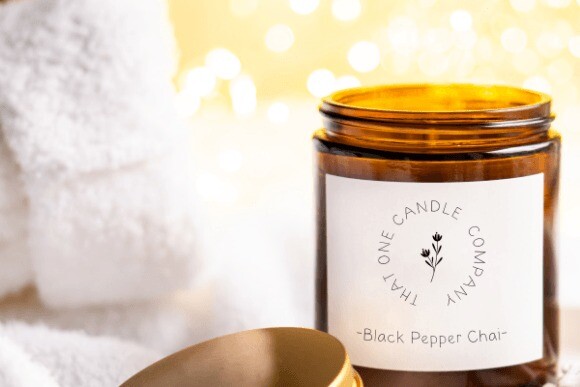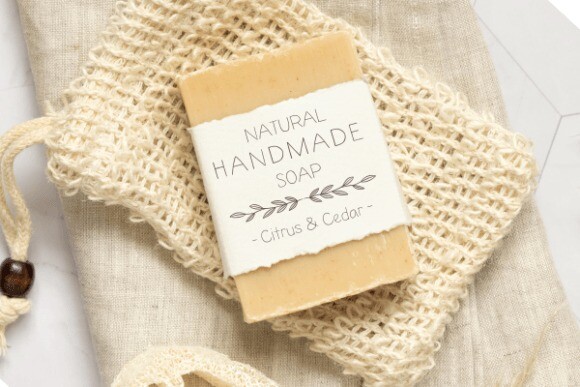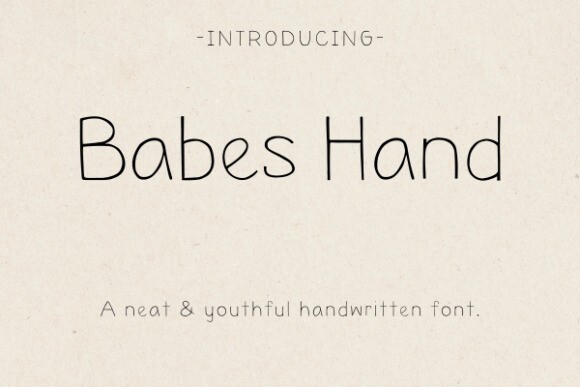
Babes Hand Font
Babes Hand Font is an incredibly versatile handwritten font with a distinct and stylized personality – designed for those seeking a clean and effortlessly elegant aesthetic. The delicately thin letters give it a sleek, modern look, transforming any ordinary text into a visually striking typeface. Its versatility extends to a wide range of applications, including digital planners, product mockups, print on demand, and countless other graphic design fields. With its vector characteristics, this font promises unhindered scalability, maintaining its pristine quality even when enlarged significantly. Tailored to enhance your creative projects, it allows for the perfect blend of function and artistry.